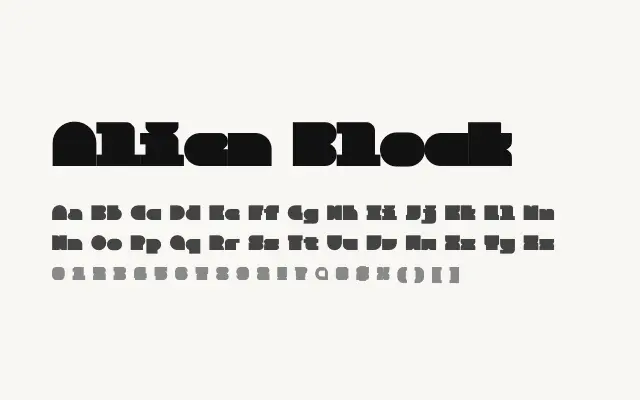
Alien Block
A novelty display font built around blocky, alien-inspired letterforms with extremely limited practical use.
Alien Block leans entirely into its sci-fi, retro-gaming aesthetic, offering rigid geometric shapes that evoke pixelated or extraterrestrial lettering. It is a one-trick typeface suited only to highly specific themed projects such as game interfaces, Halloween graphics, or science-fiction branding. Outside of those narrow contexts it offers little versatility.
Alien Block mimics pixelated or blocklike alien-script aesthetics with rigid, geometric letterforms designed purely for decorative impact. It has virtually no utility beyond themed display applications.